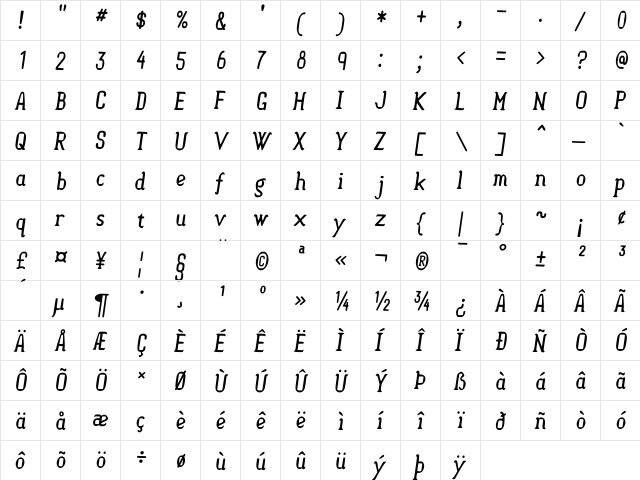
Semi-Sweet Italic
| Designer | Walter E Stewart |
Design Context for Semi-Sweet Typeface
Semi-Sweet takes a measured approach to typography — its balanced proportions and neutral character make it a reliable workhorse for both digital and print work. Its italic angle brings a sense of urgency and motion to the letterforms.
Pro Tip: Use Semi-Sweet for emphasis, pull quotes, and subheadings where its slanted energy can add rhythm to the layout.